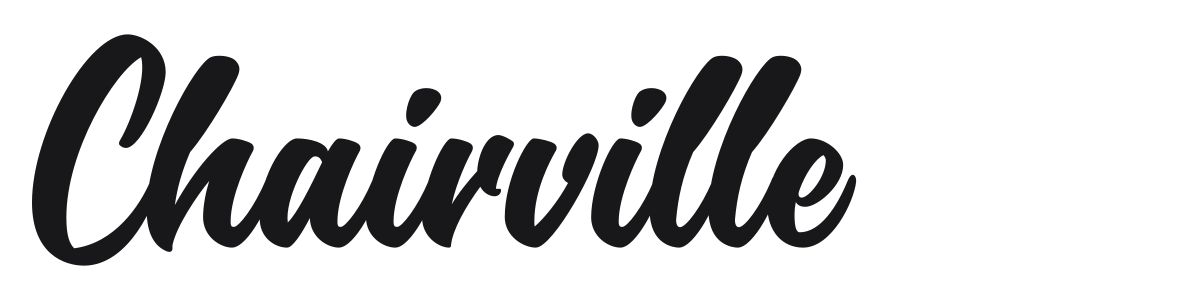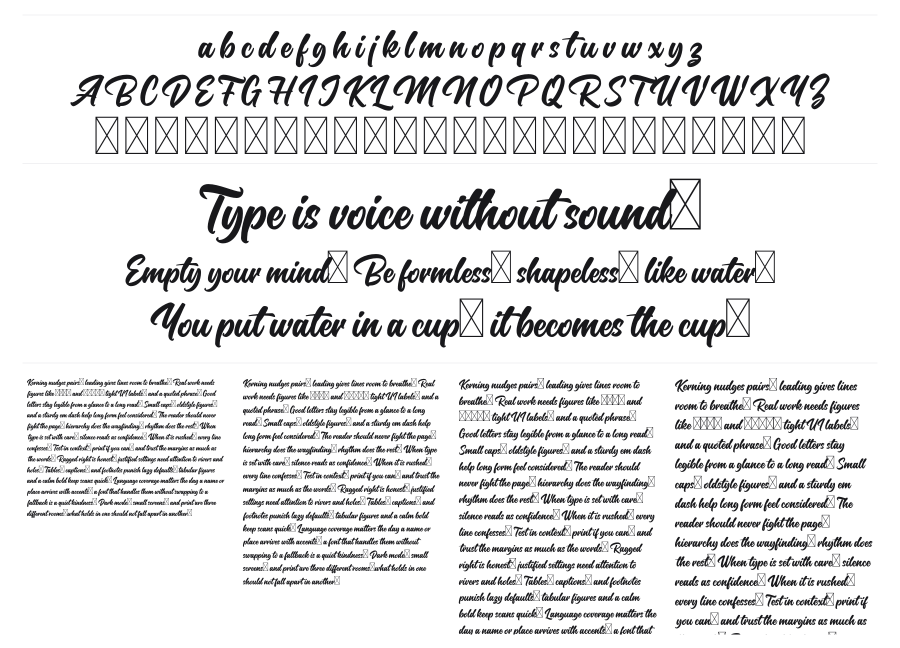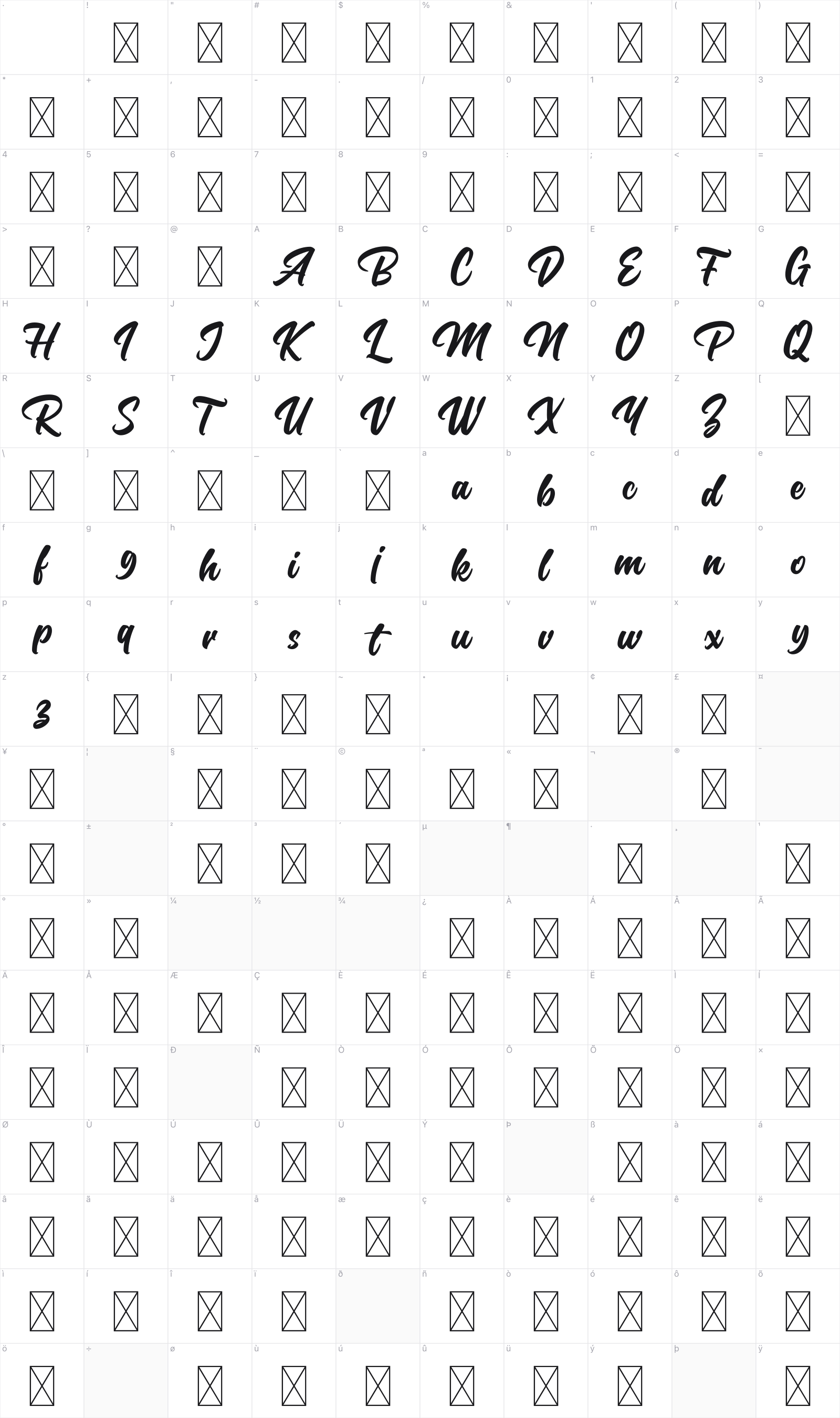
Chairville
Chairville is a bold, casual brush script with thick flowing strokes and a hand-painted energy. The connected letters and generous x-height give it a confident readability at large sizes, with just enough roughness to feel authentic rather than polished. It sits naturally on packaging, posters, and brand marks that want a friendly, handcrafted feel.